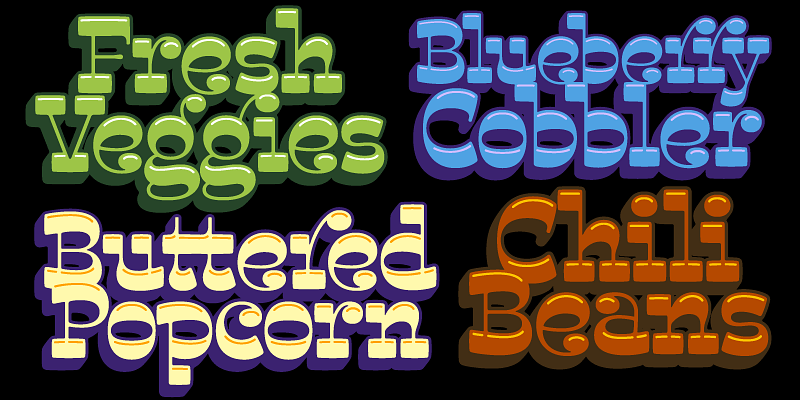
Quirkwood Font Free Download
Quirkwood Font Free Download is a whimsical, hand-drawn display typeface full of personality and playful charm. With its quirky letterforms and irregular lines, this font is perfect for children’s books, creative branding, product packaging, greeting cards, and any design that needs a lighthearted, imaginative touch.
Its organic, handcrafted feel adds warmth and uniqueness to any layout, while still remaining readable and versatile. Quirkwood works seamlessly with design tools like Adobe Illustrator, Procreate, Canva, and Photoshop, making it easy to bring a sense of fun and creativity into your projects.